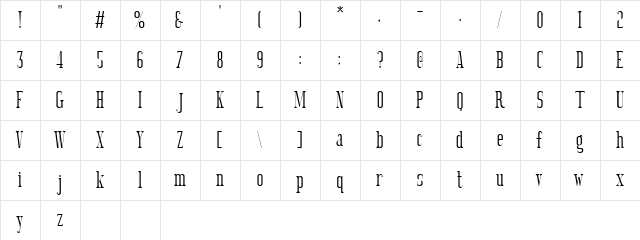
Khalisa_DEMO Regular
| Foundry | MysticalType Studio Co. |
| Designer | Candi Erwanto |
Design Context for Khalisa_DEMO Typeface
Khalisa_DEMO offers clean, dependable letterforms without strong stylistic allegiance, making it a practical choice for designers who need flexibility.